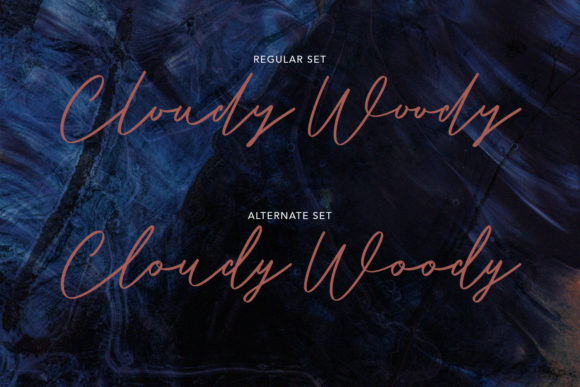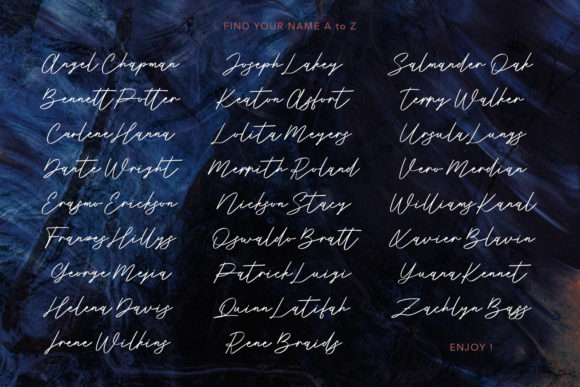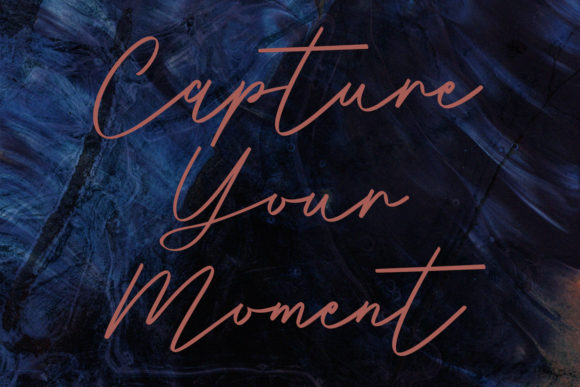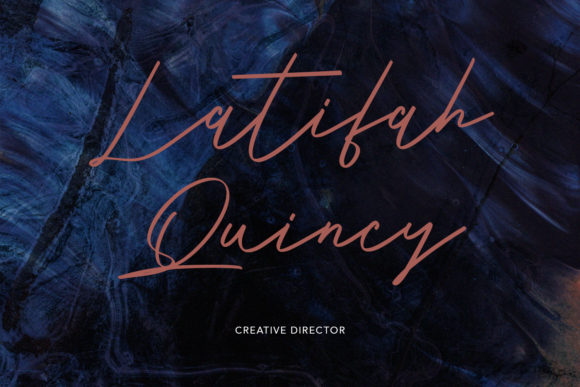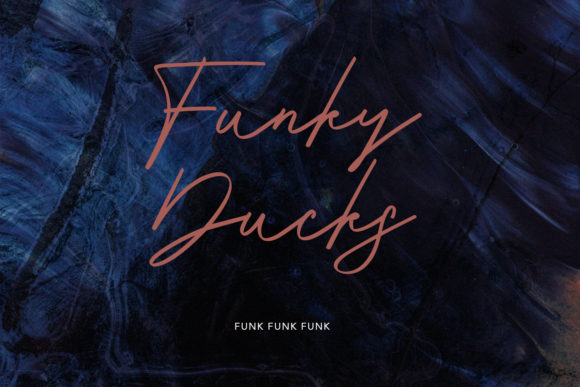
Krysttal Spears Font
About Krysttal Spears Font
Krysttal Spears is a delicate and elegant handwritten font. Its distinct and well rounded letters make this font a masterpiece. Fall in love with its incredibly versatile style and use it to create spectacular designs!